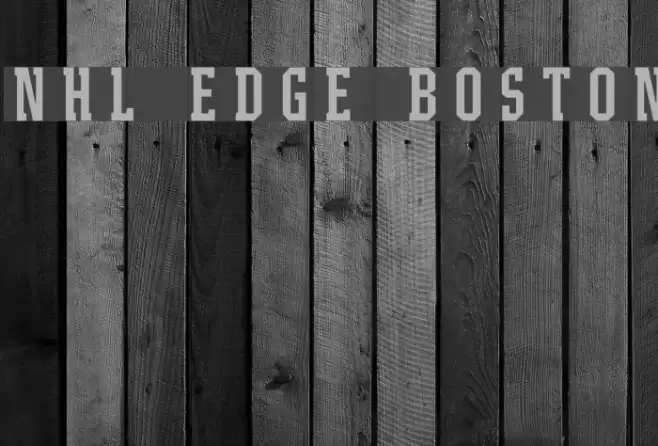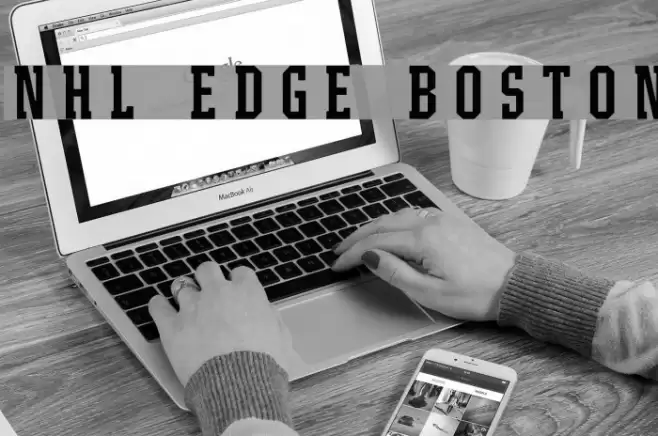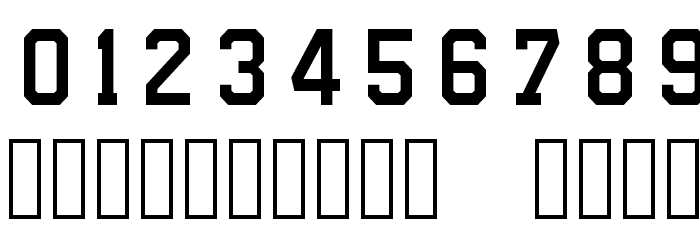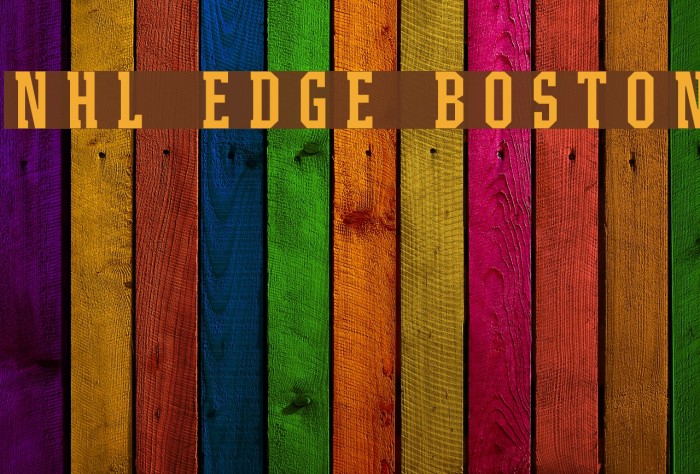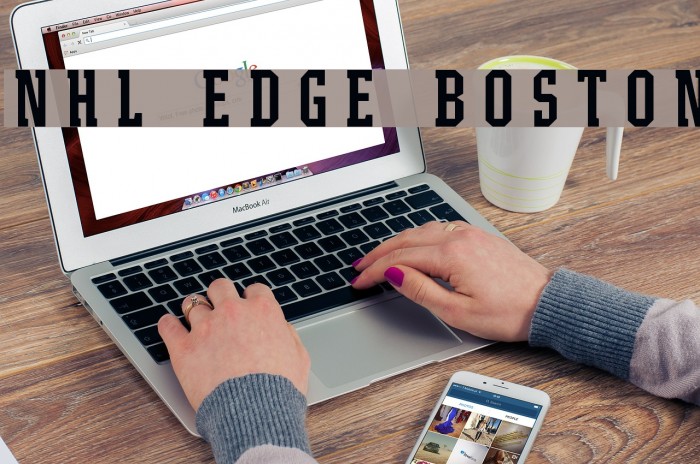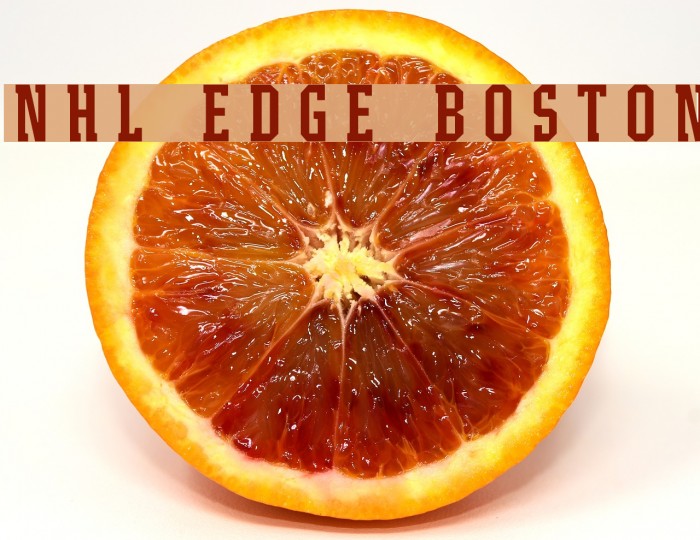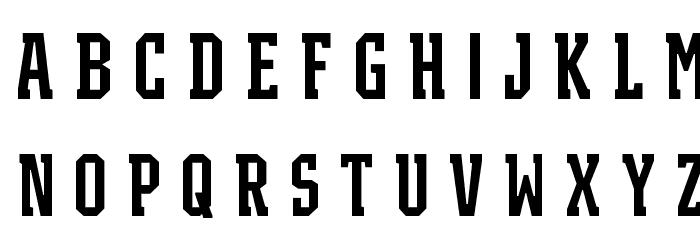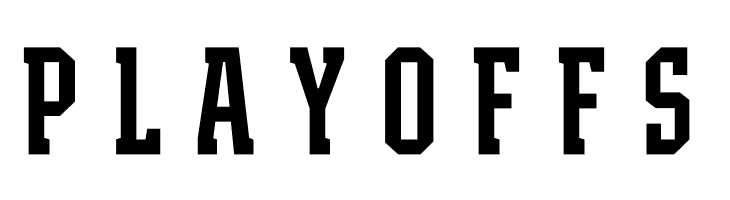
NHL Edge Boston Font
NHL Edge Boston Description
This font exhibits a bold and robust style with strong geometric shapes and a distinct blocky appearance. The uppercase letters are uniform in height, with sharp angles and a solid presence, making them highly legible and impactful. The numbers follow a similar design, maintaining consistency across the character set. The font's design is reminiscent of sports jerseys or team branding, conveying a sense of strength and determination. Its clean lines and structured form make it suitable for various applications where a bold statement is needed.
A bold, geometric font with a strong, blocky appearance ideal for impactful designs from Uncategorized fonts.
- Proposed Projects: Sports team branding, event posters, merchandise design, and any project requiring a bold, assertive typeface.